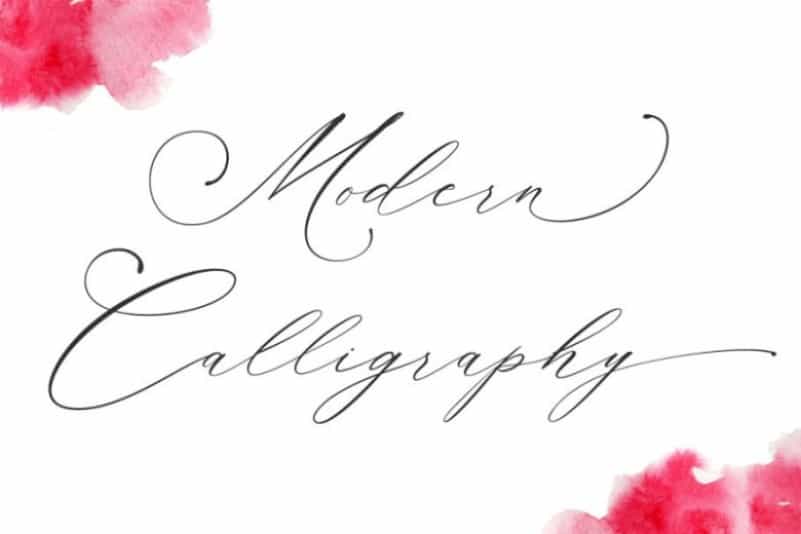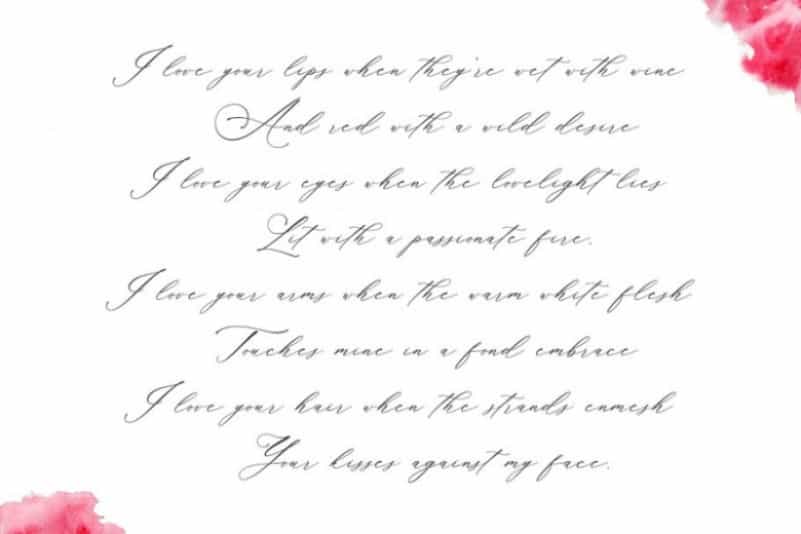
Planolla features a crafted script style that only gets better with time. Its known for its ease of reading and writing – the worlds user friendly pen!